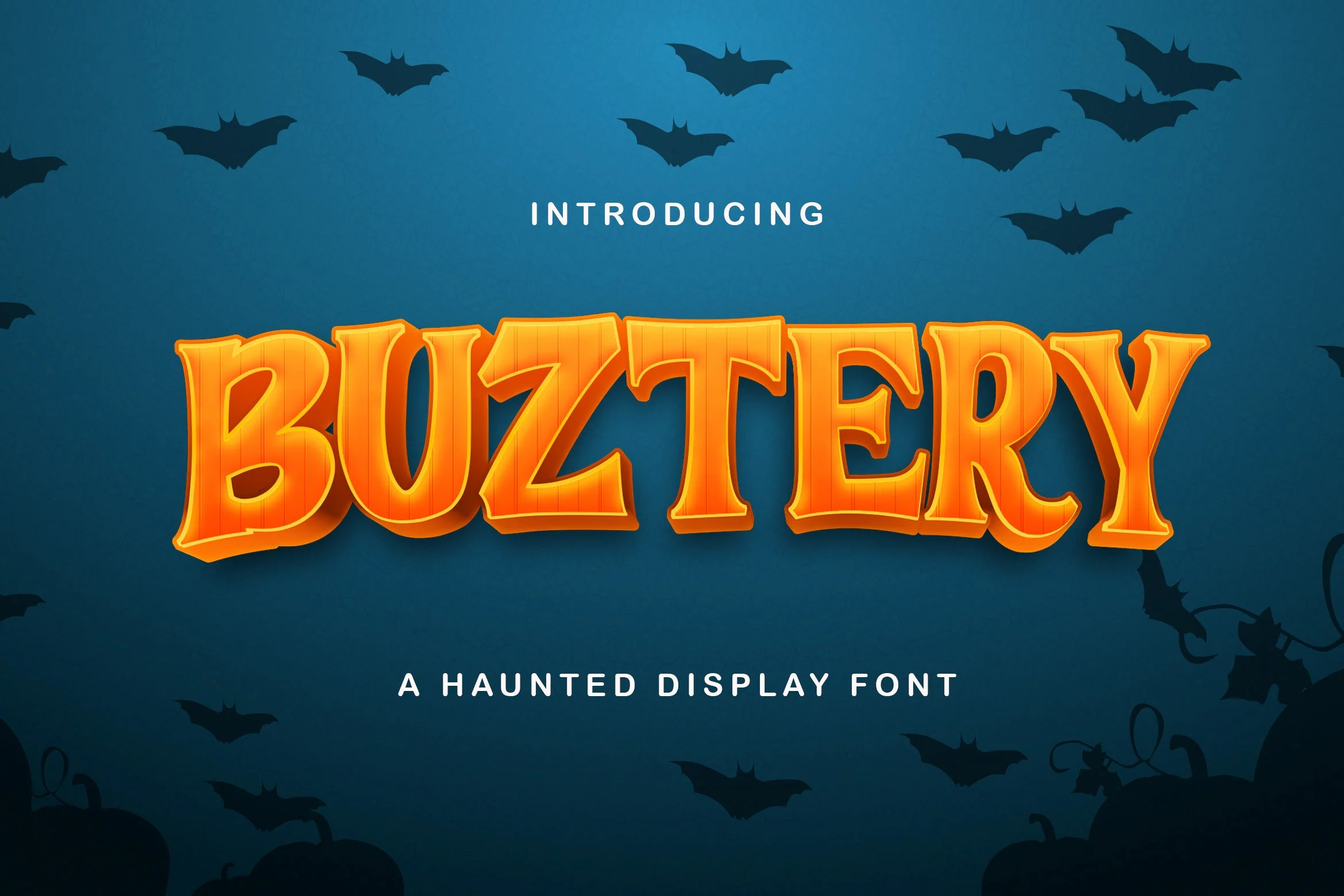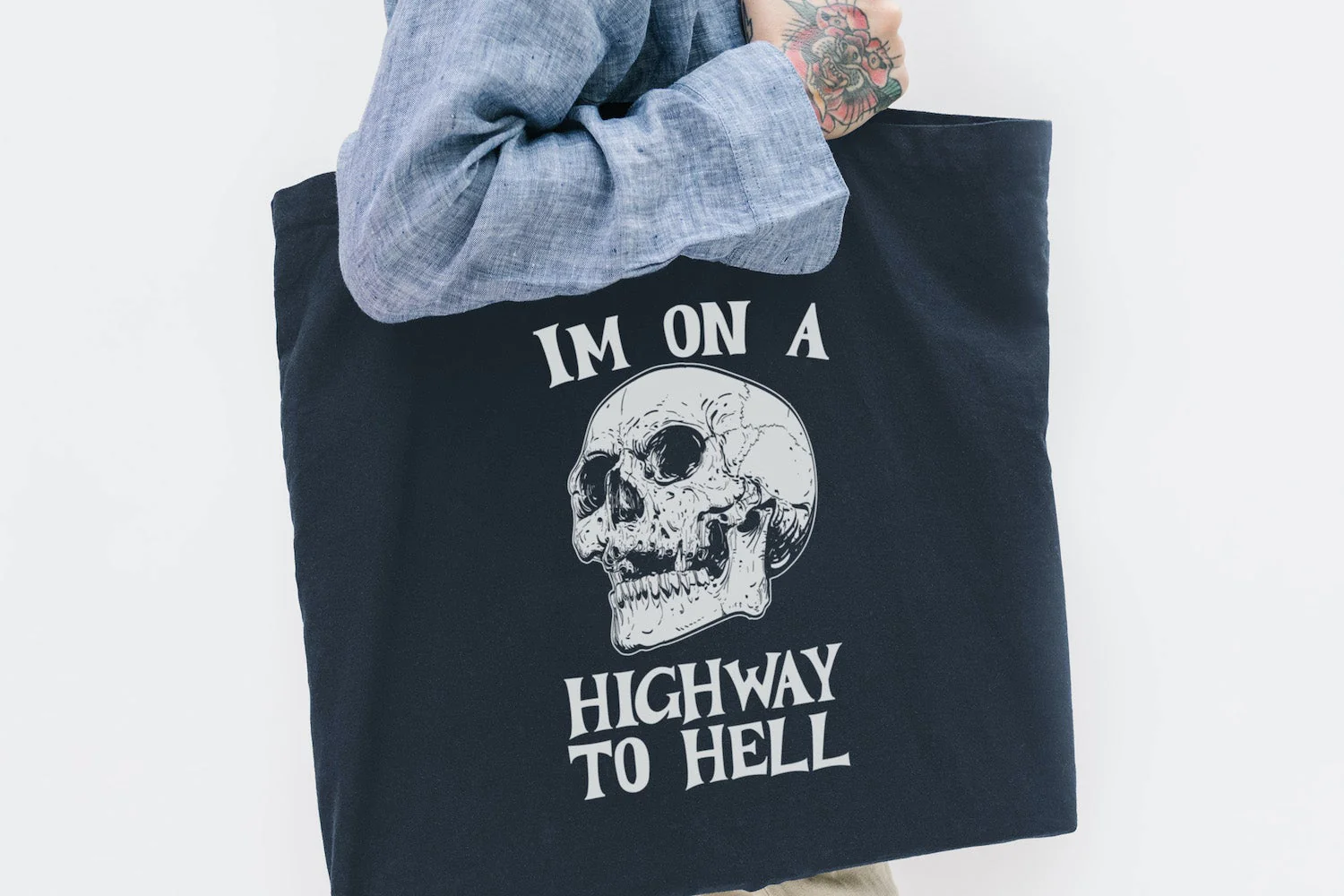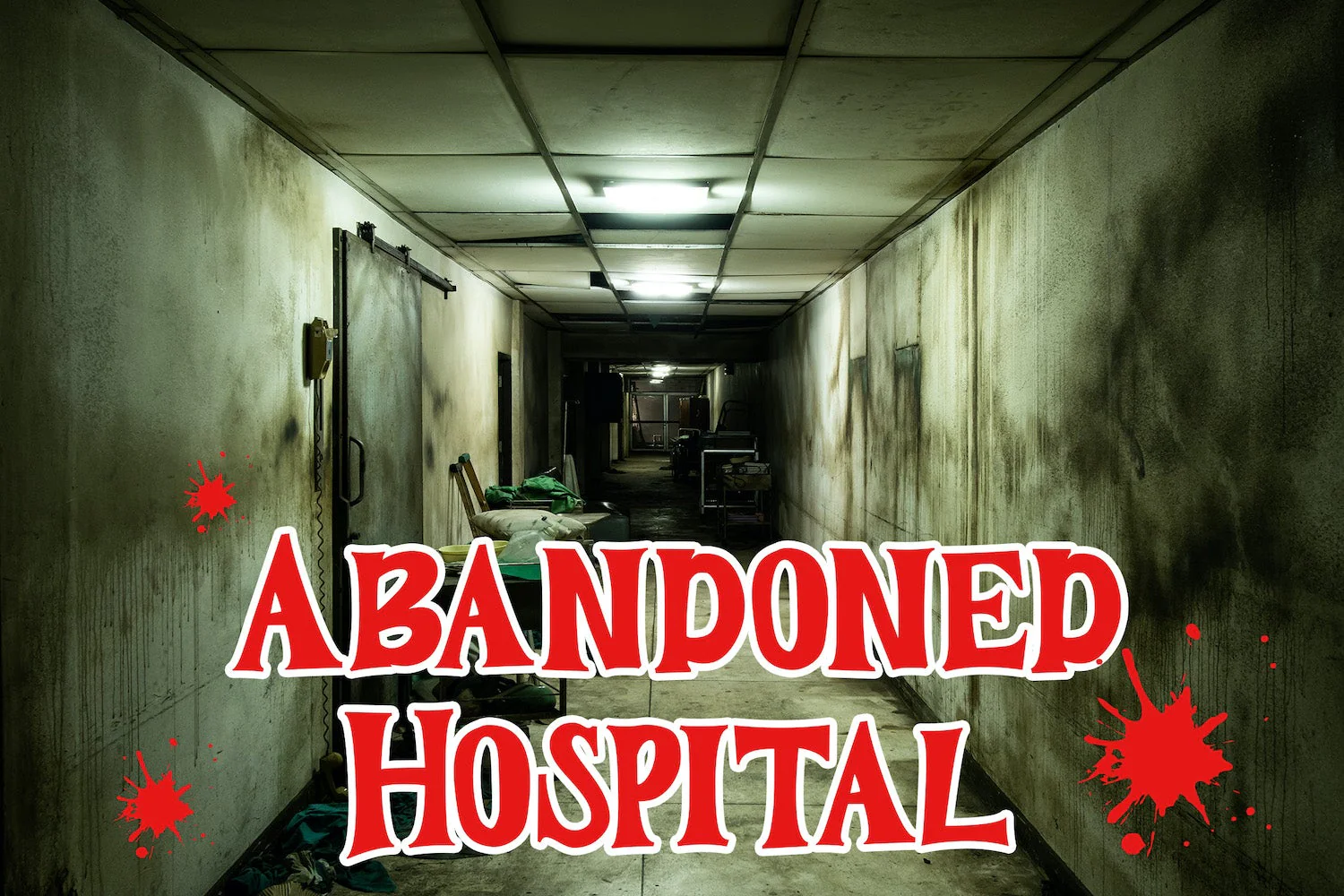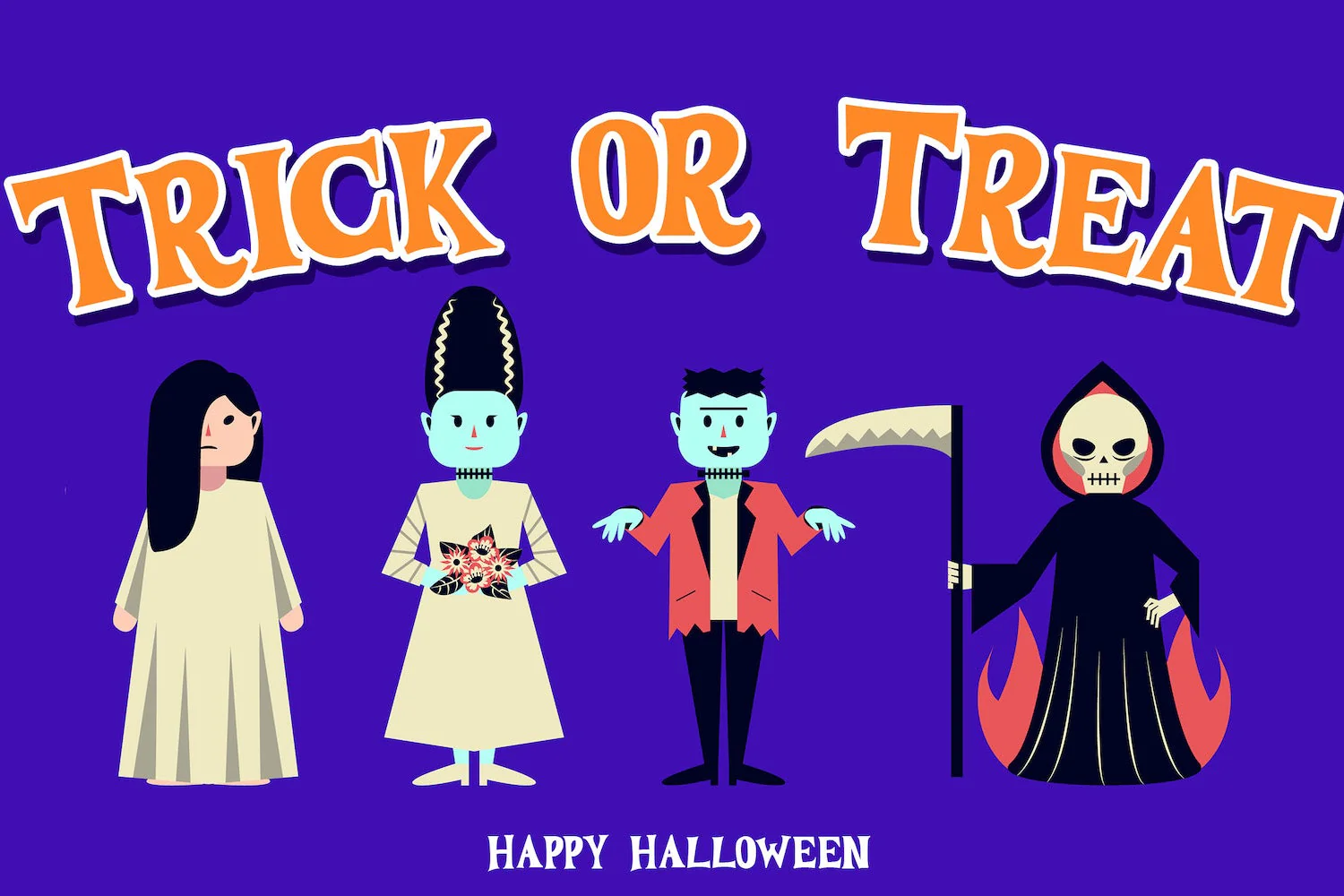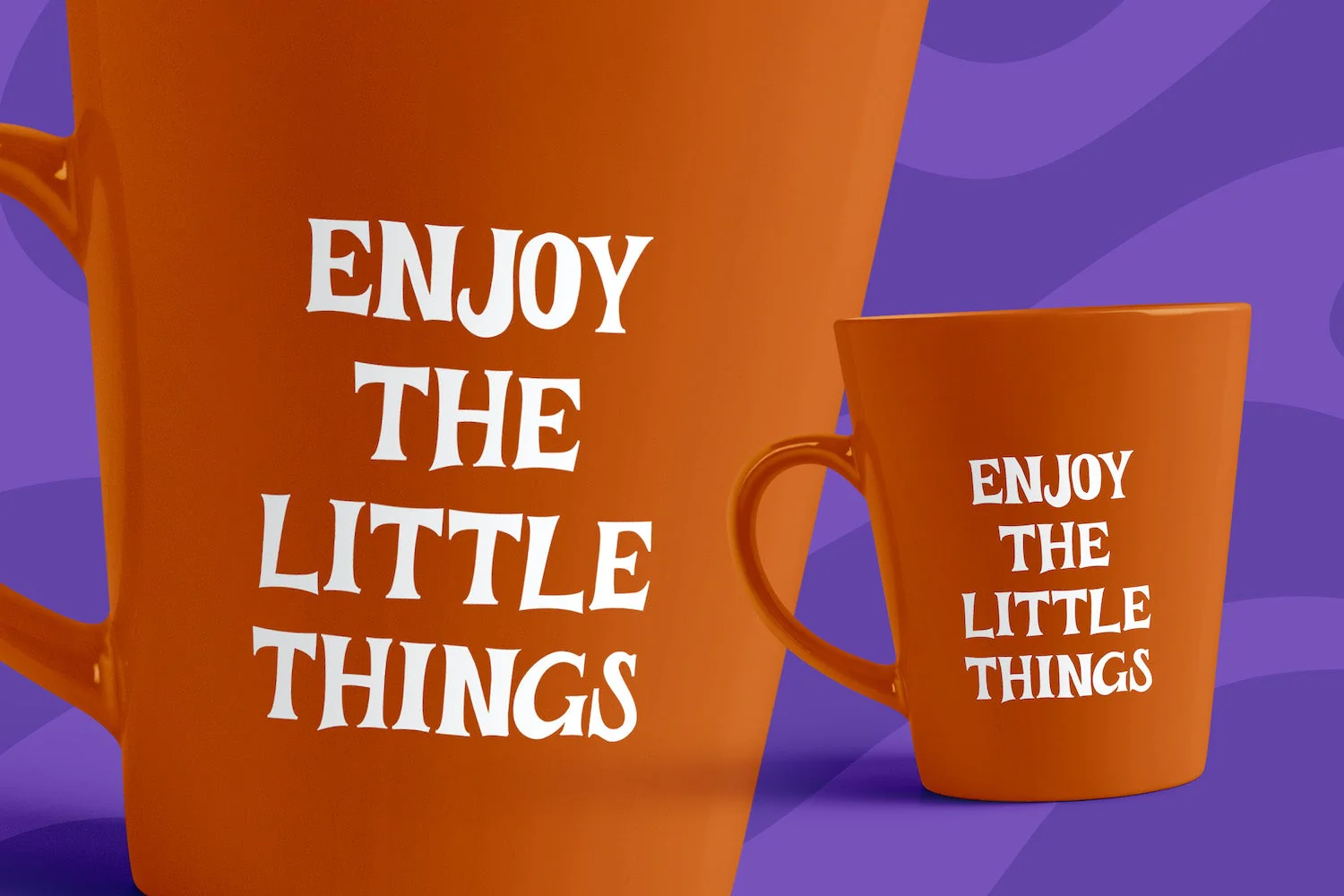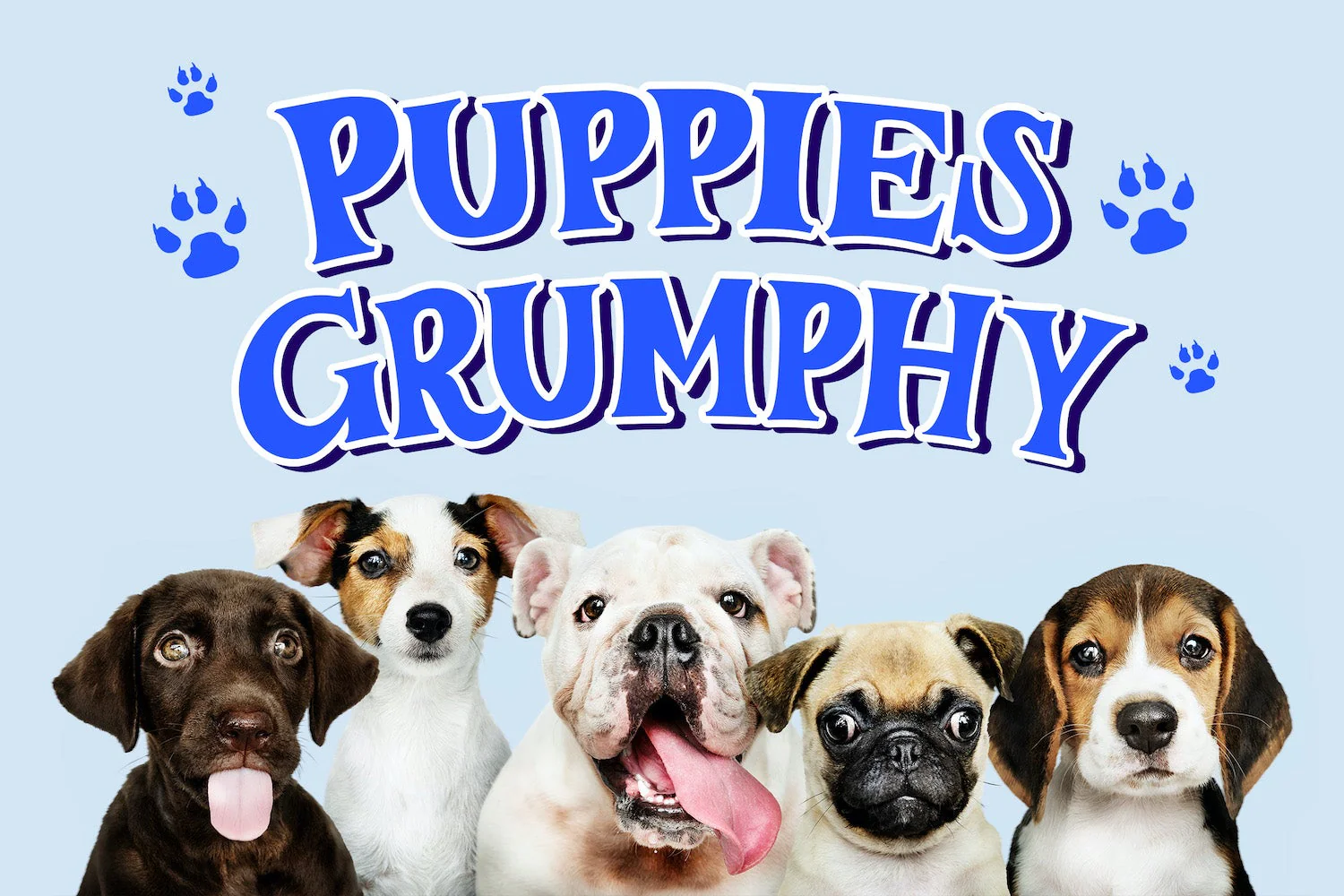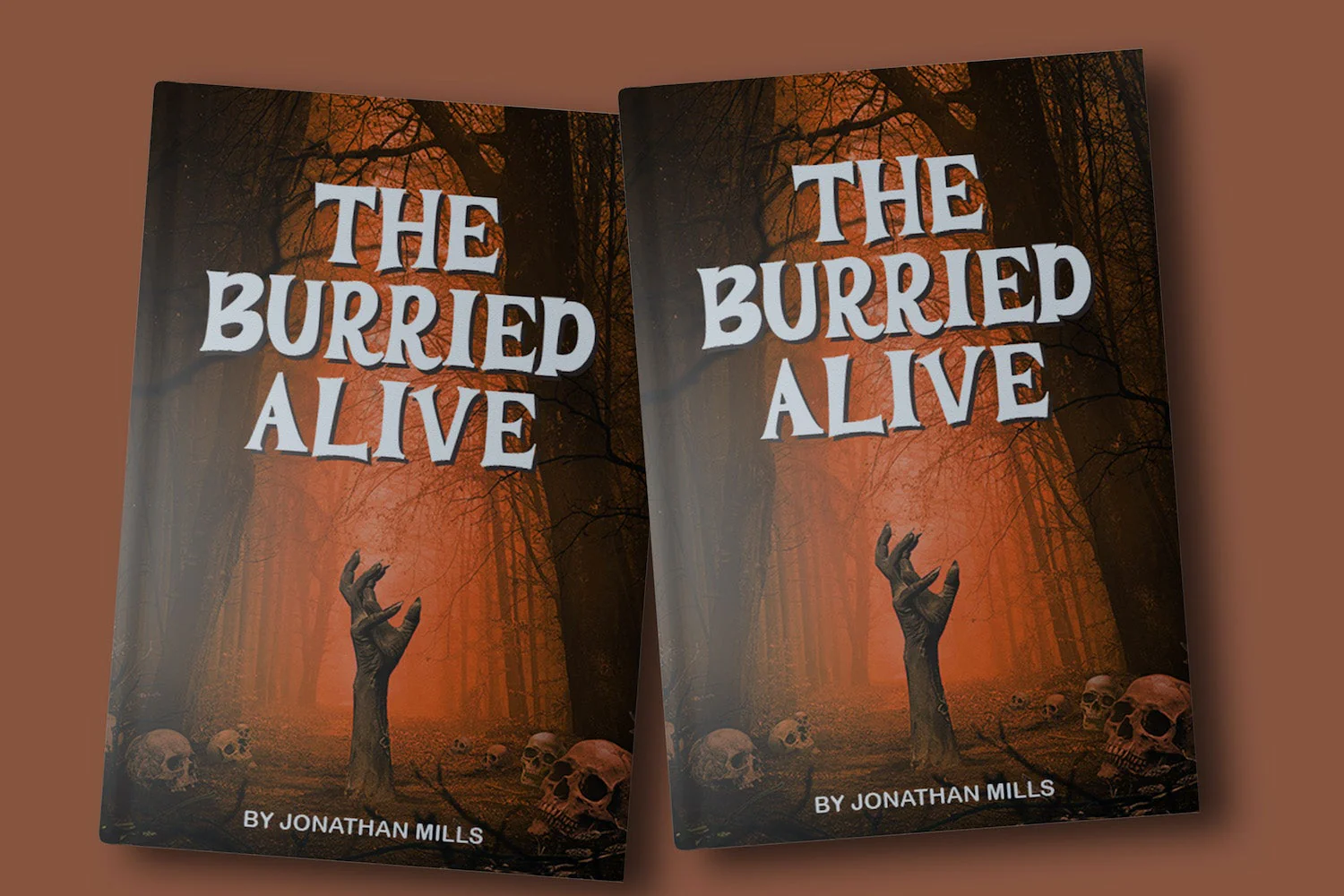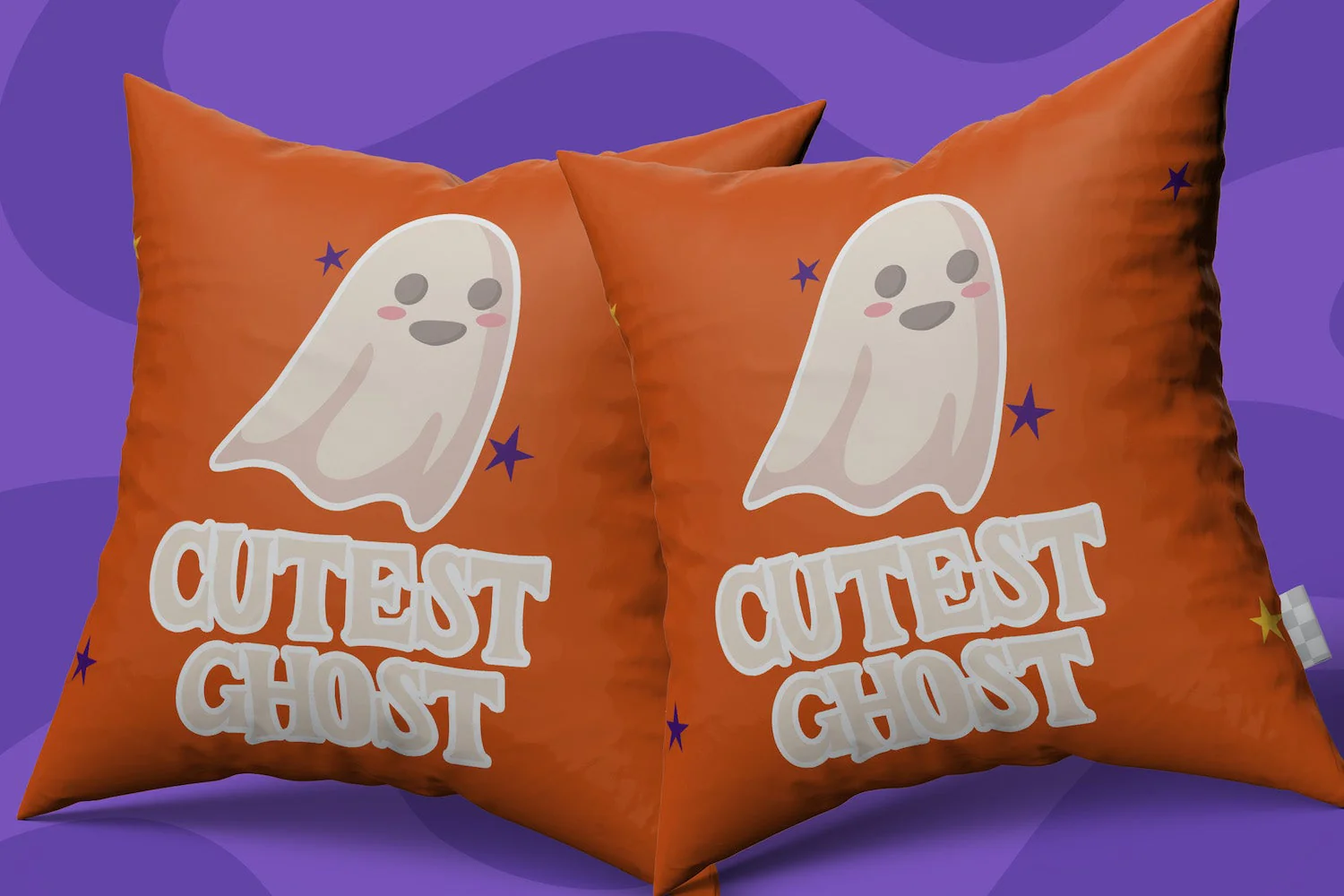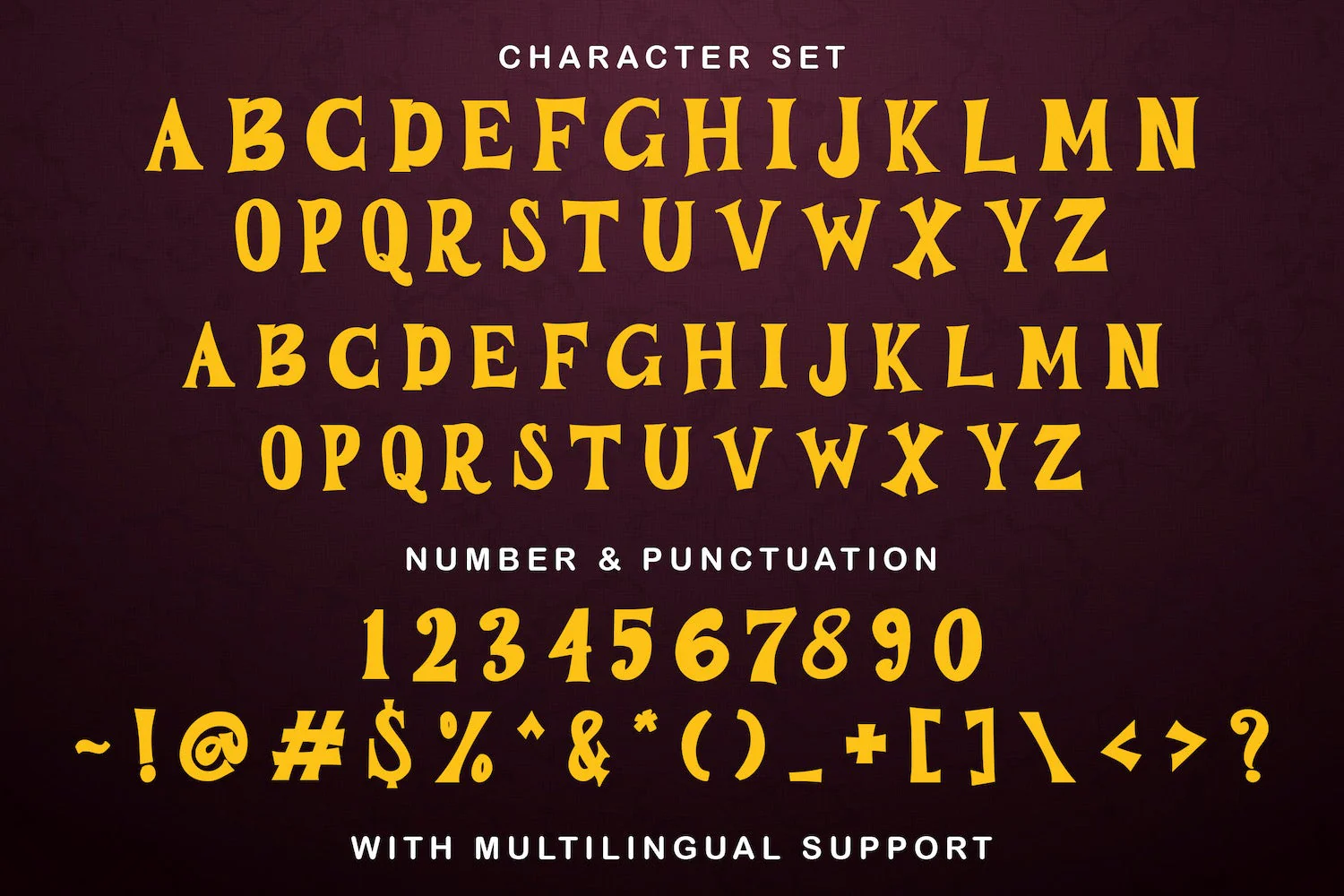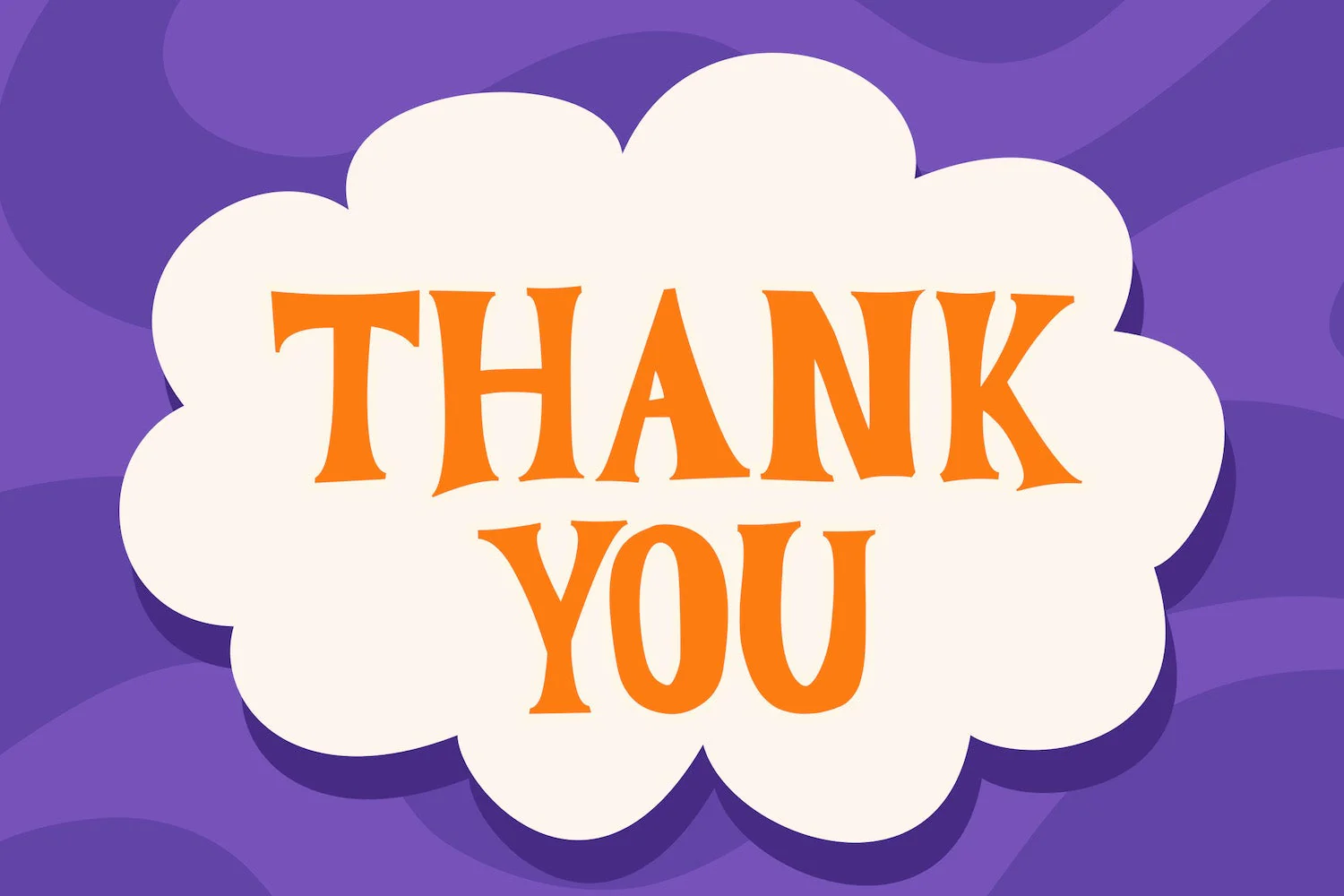
BUSTERY - Haunted Display Font
Introducing BUSTERY - Haunted Display Font
BUSTERY is display font with horror and scary style. Virgo Display has unique design taste that we combine with decorative horror style. The Virgo Display is perfect for your any horror project!
Introducing BUSTERY - Haunted Display Font
BUSTERY is display font with horror and scary style. Virgo Display has unique design taste that we combine with decorative horror style. The Virgo Display is perfect for your any horror project!